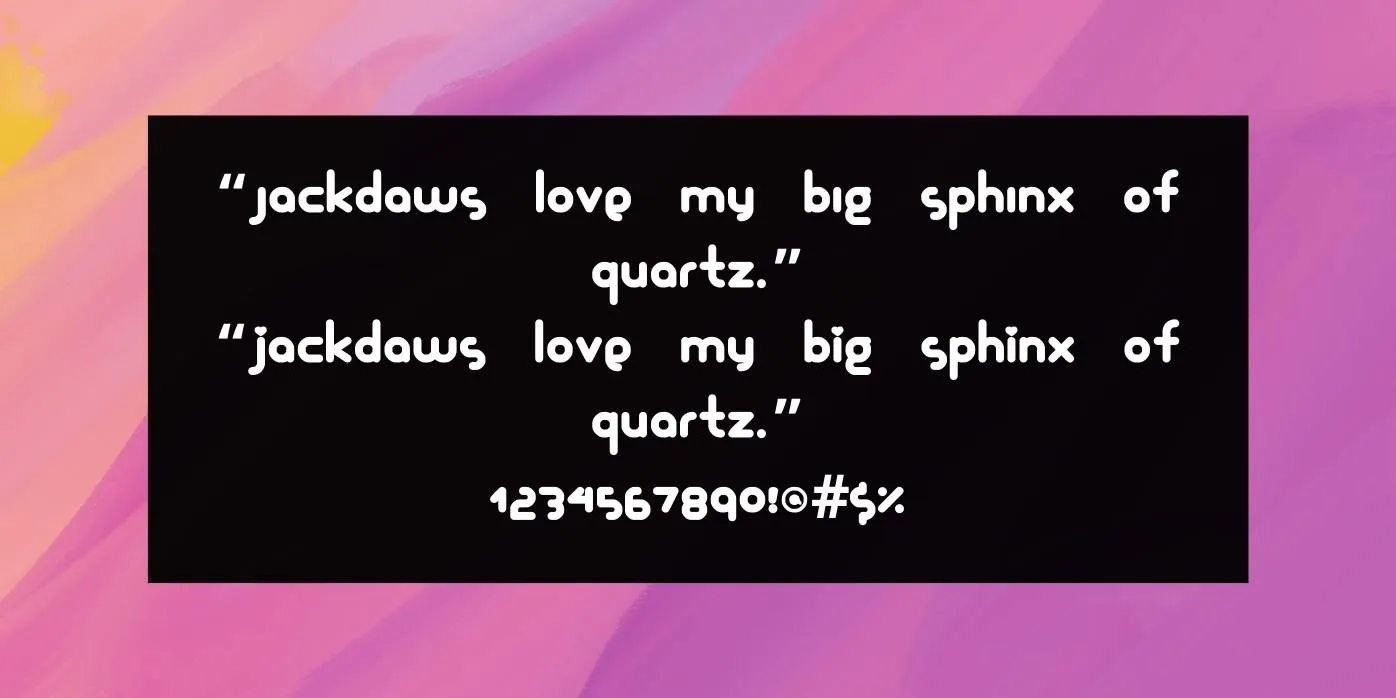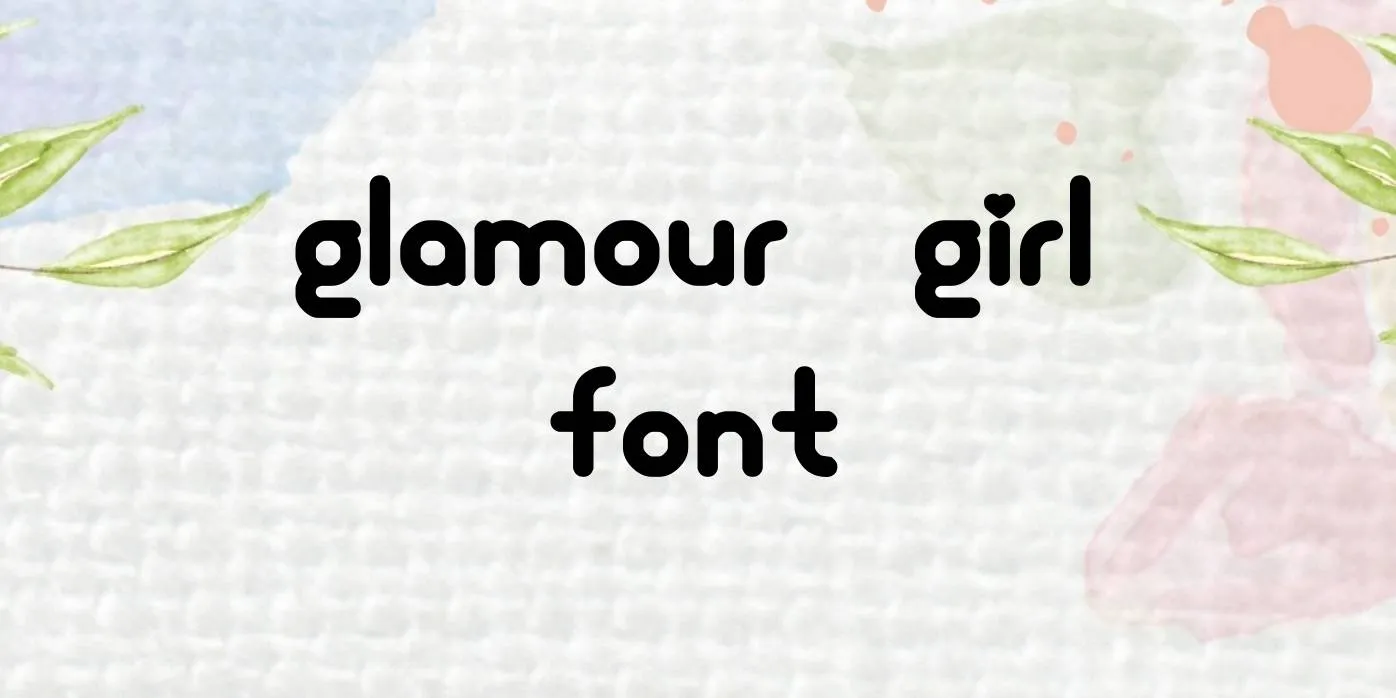
Glamour Girl Font
Glamour Girl Font is a beautiful and unique font that was created by Pizzadude. The Font includes two different styles, Regular and Italic. Each style contains 12 different characters. The Font was created with the intention of providing a unique and elegant font for use in glamourous and sophisticated projects.
The typeface family has a special generator tool feature, in which you can generate the typeface style immediately and without any downloading. The glyph of this font gives the feel of classic glamour with a touch of modern sophistication. It is much similar to the moon font it has matching letterforms with this rockstar and also belongs to the sans serif family.